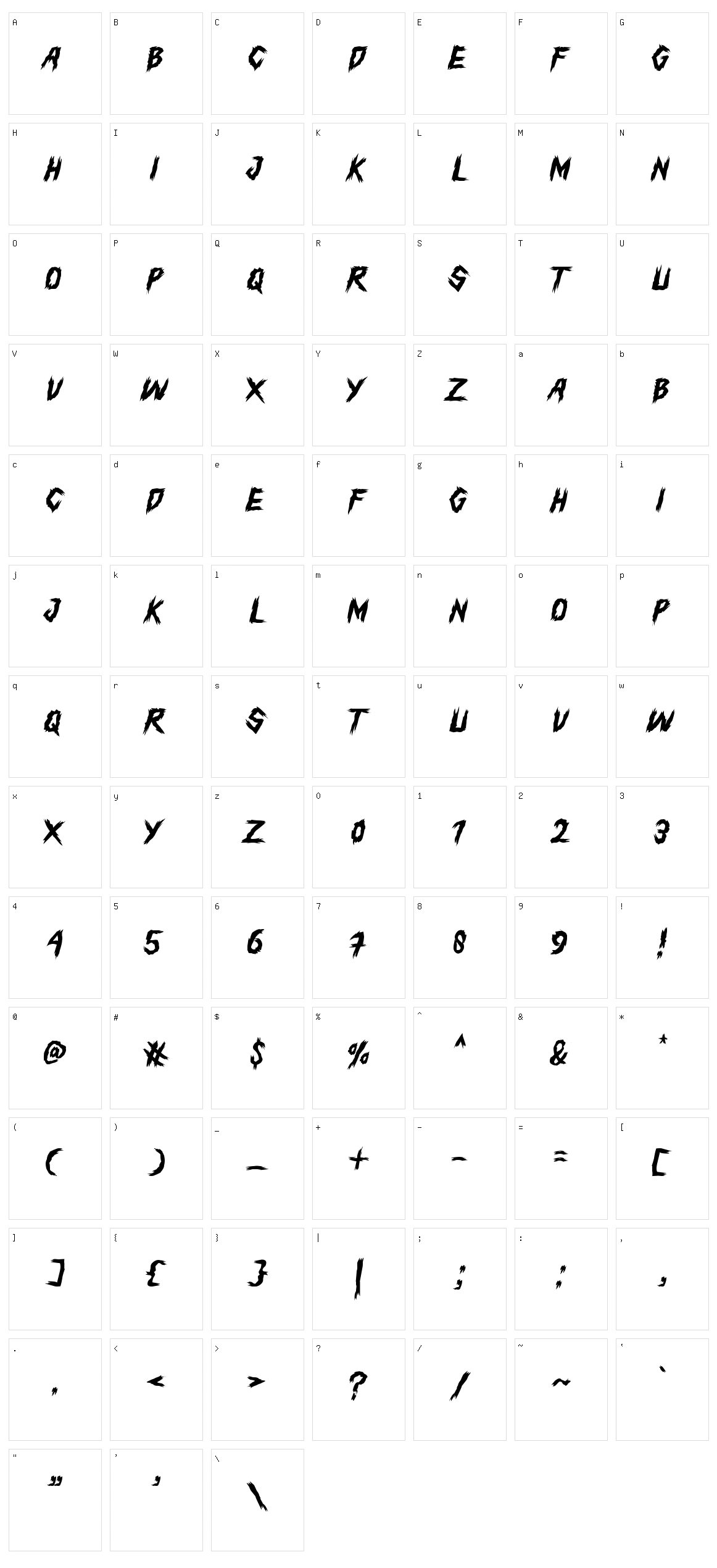
The free font Taliwangke is carefully designed by GFR Creative, showcasing a thoughtful balance of creativity and usability and falls under the Horror font style. When you download the ZIP file, it contains only 34.71 KB of font files, making it lightweight and quick to download. Please review the license details below to understand permitted usage and distribution rights. If license information is not available, we recommend using this font for personal projects only or contacting the author directly for commercial usage permissions.